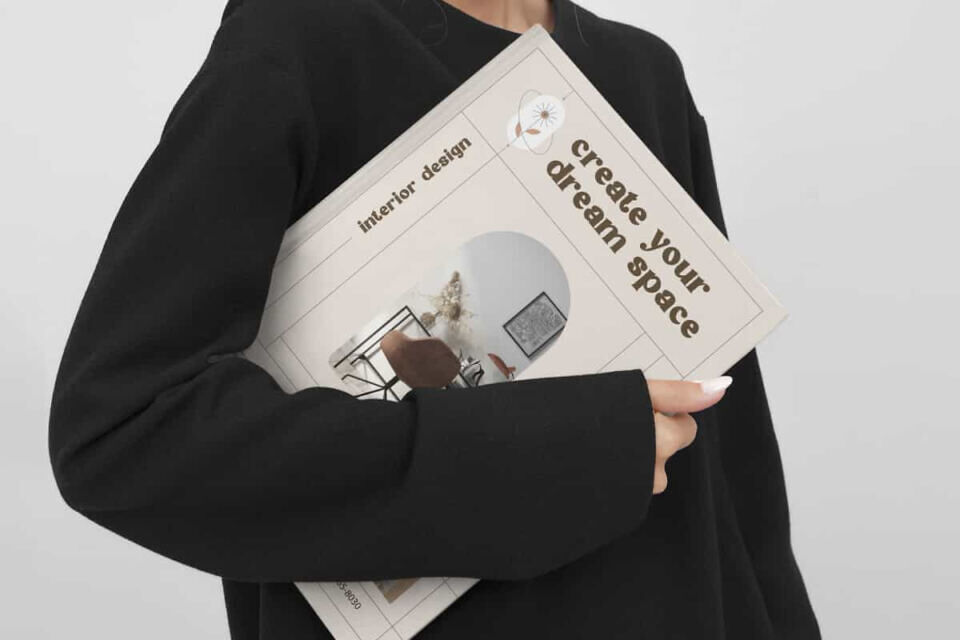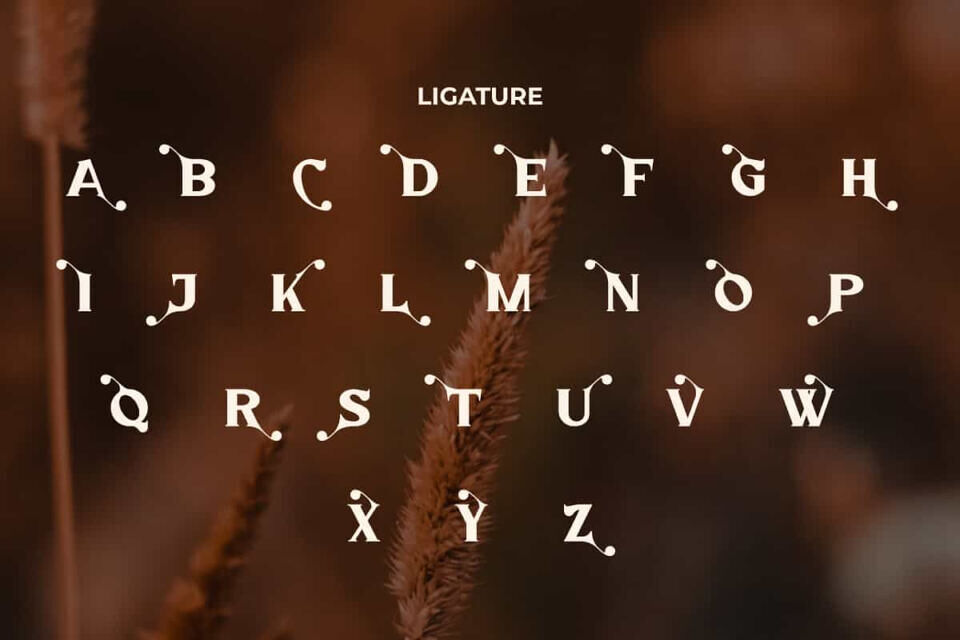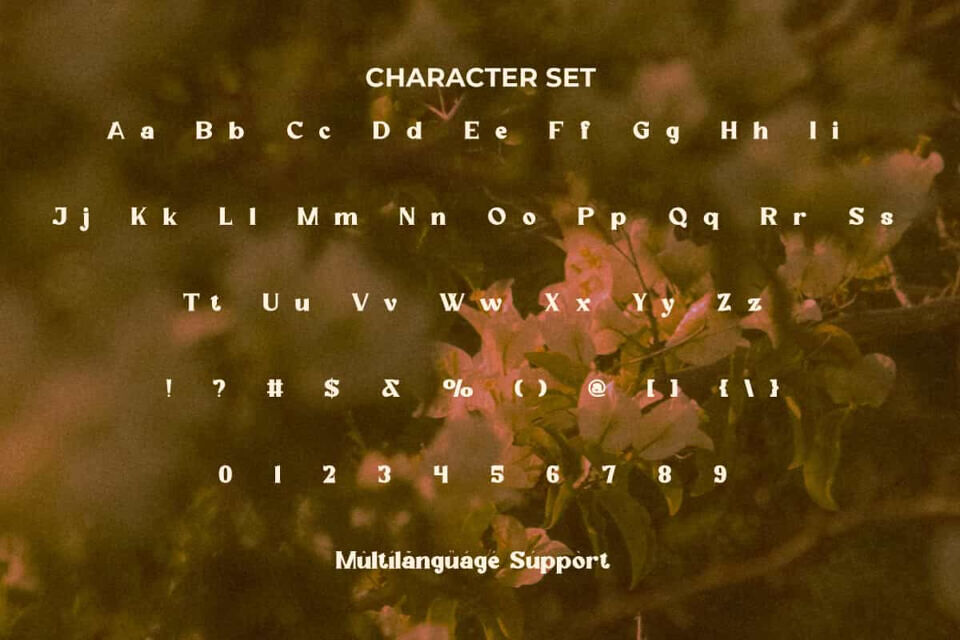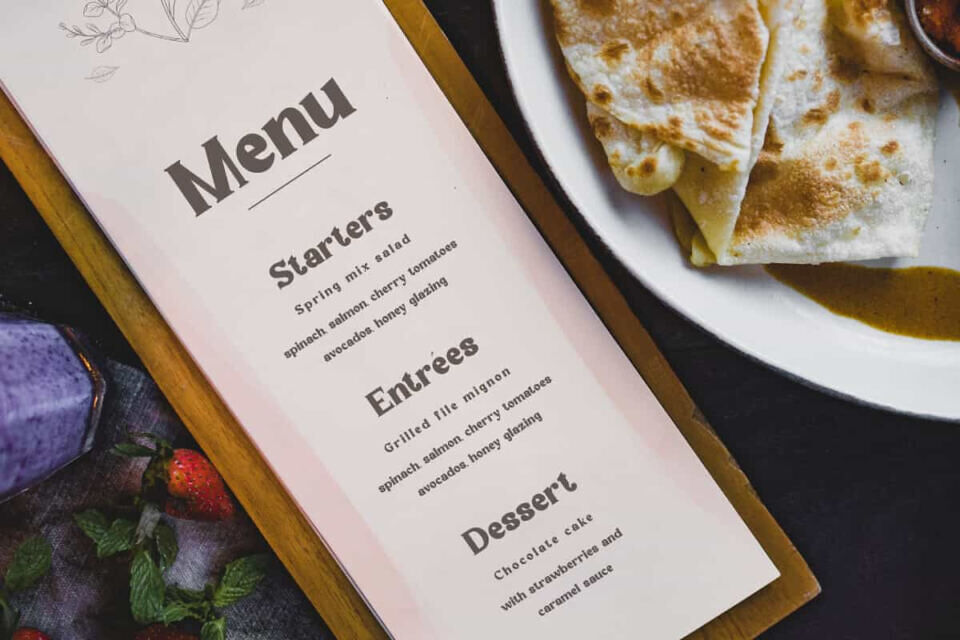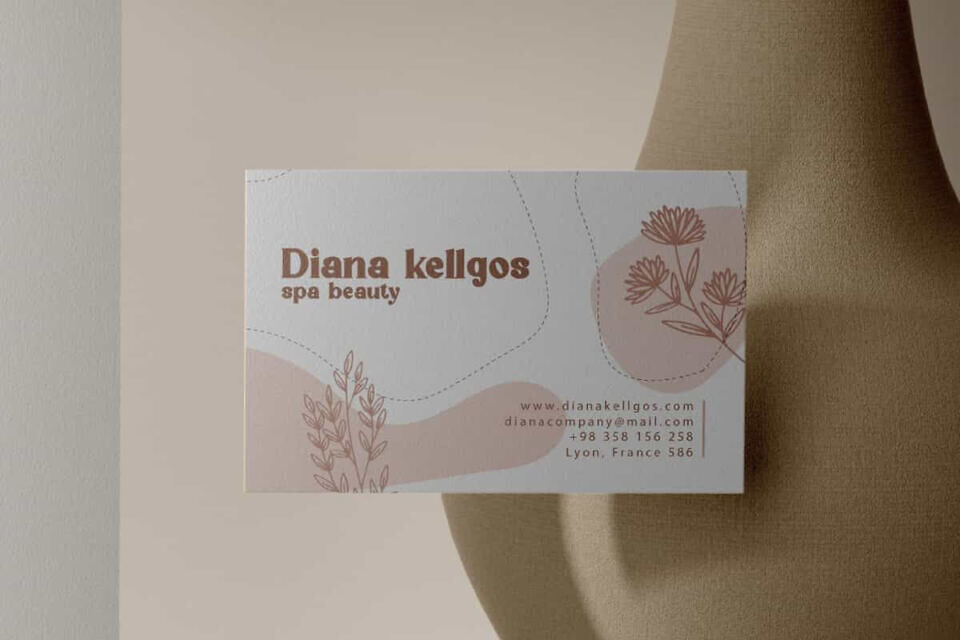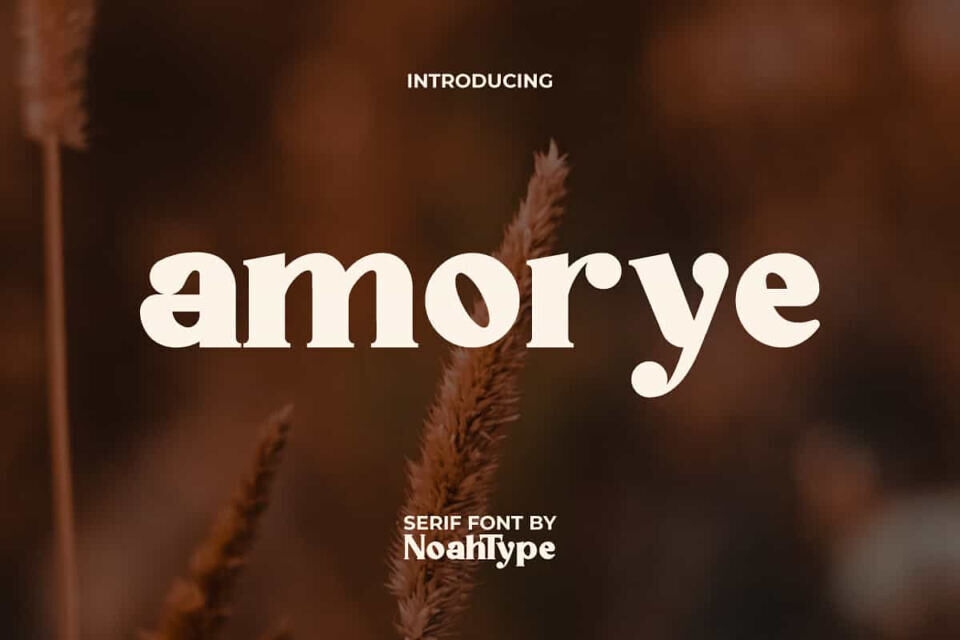
Amorye Font
Amorye Font is an aesthetic serif style font by NoahType. This font has a medium weight which makes it look adorable and beautiful on designs. It will be good for any designs, such as stationery, brand image, invitation, custom design, label, marketing material, menu, poster, product packaging, quotes, signage, web and many more!
Amorye Font includes a complete set of Uppercase and Lowercase Basic Characters, Numerals, Punctuation and Symbol. The addition of Alternate character of this font will give beautiful look and also a perfect choice for many industries, such as beauty product, event or wedding organizer, accessories, advertising, fashion, movie, photography, printing, publishing, spa and salon, travel, etc.